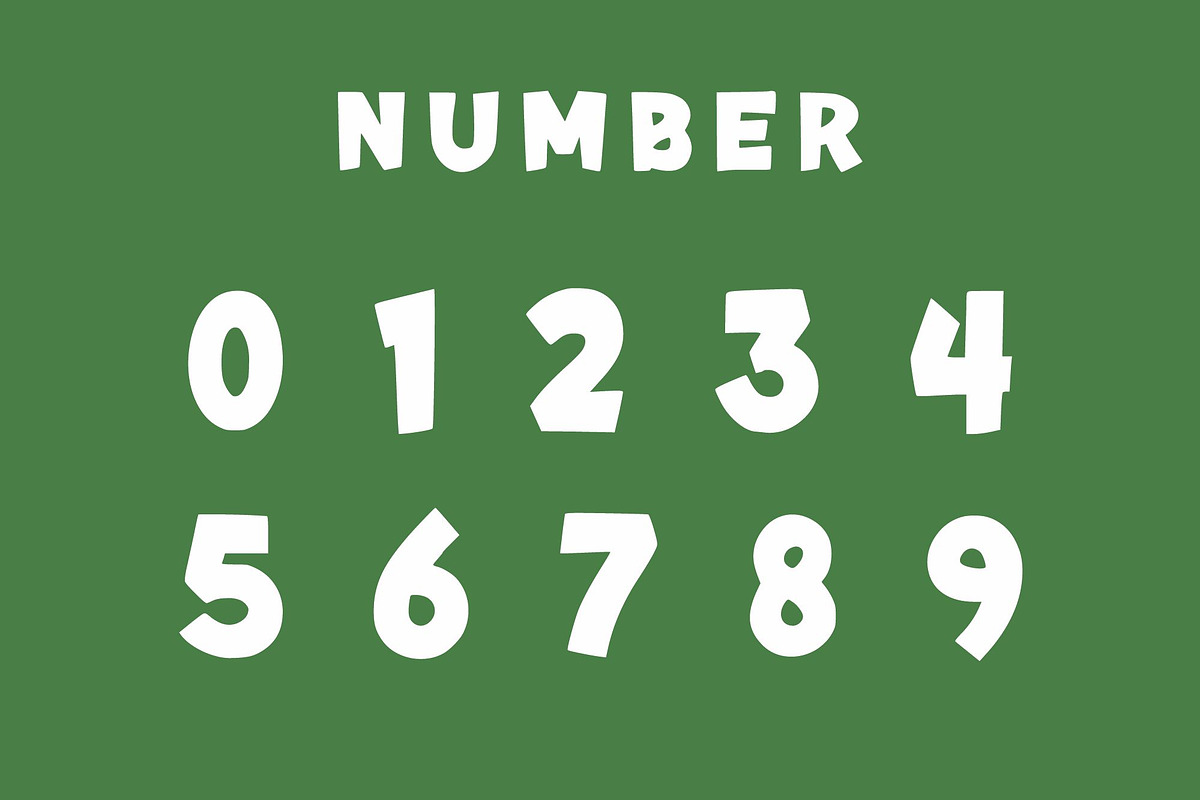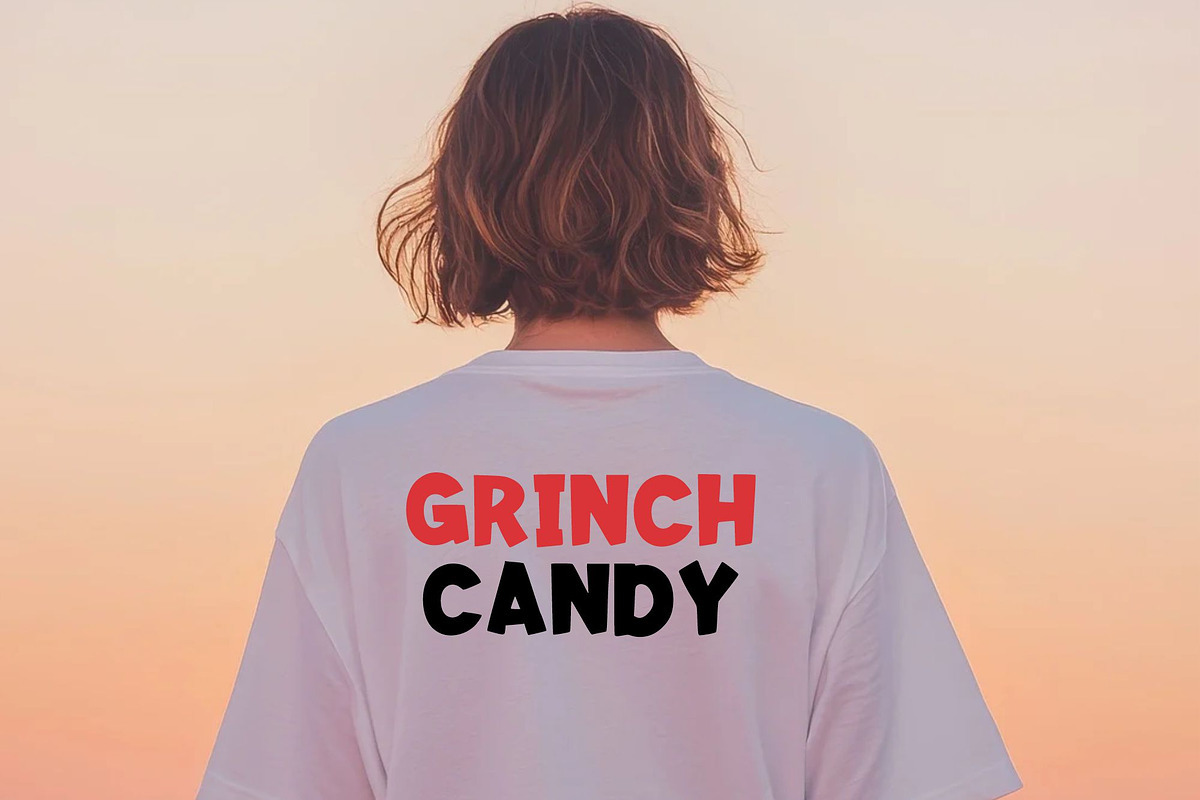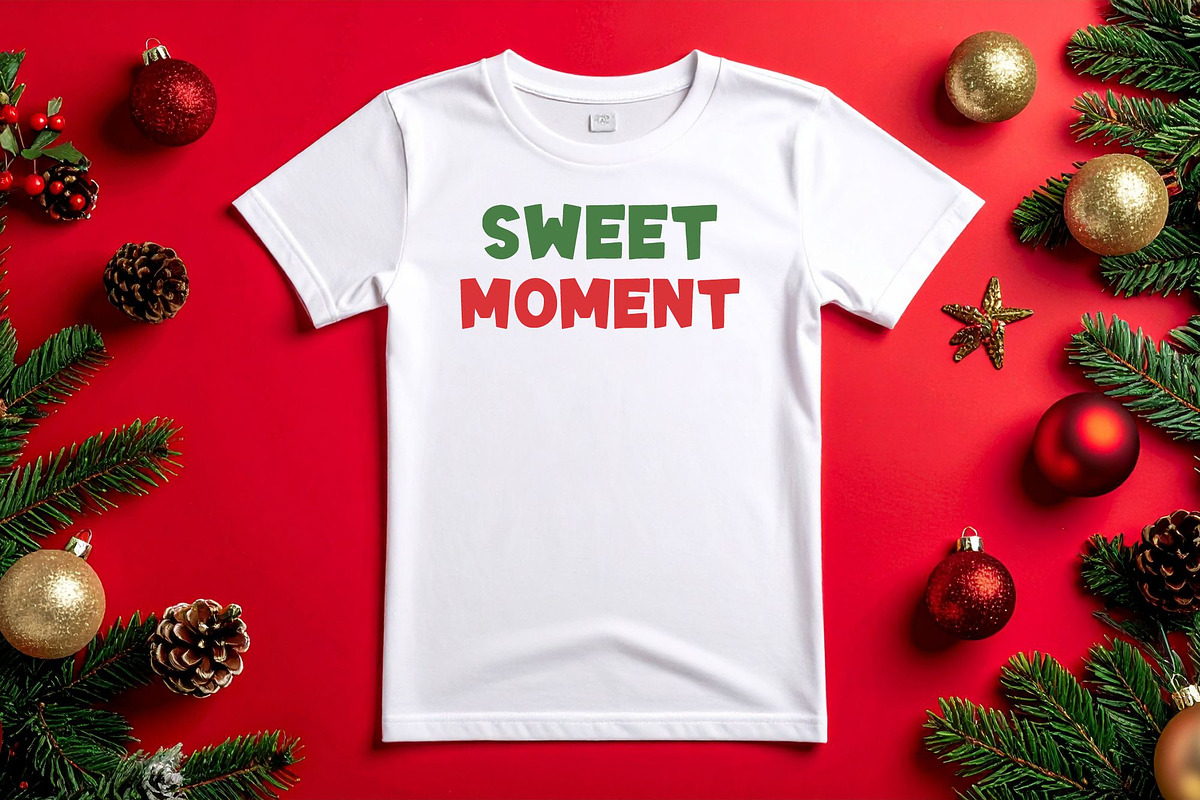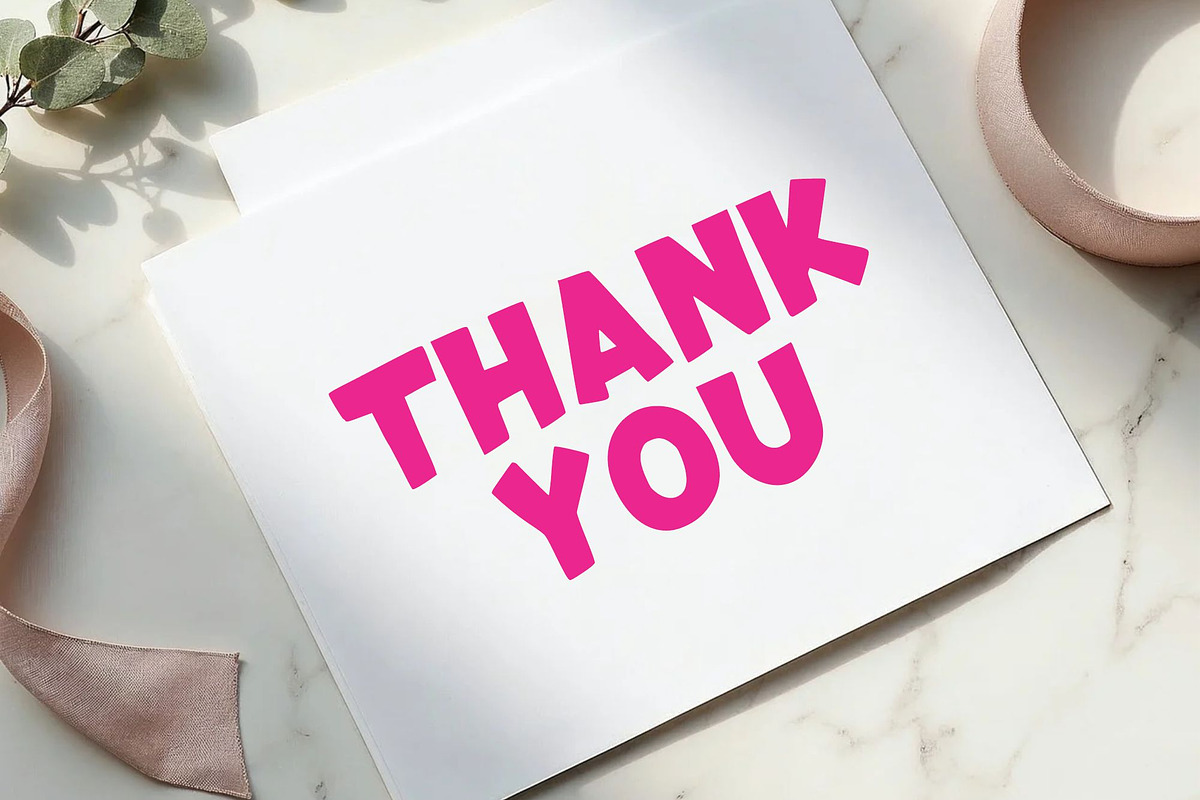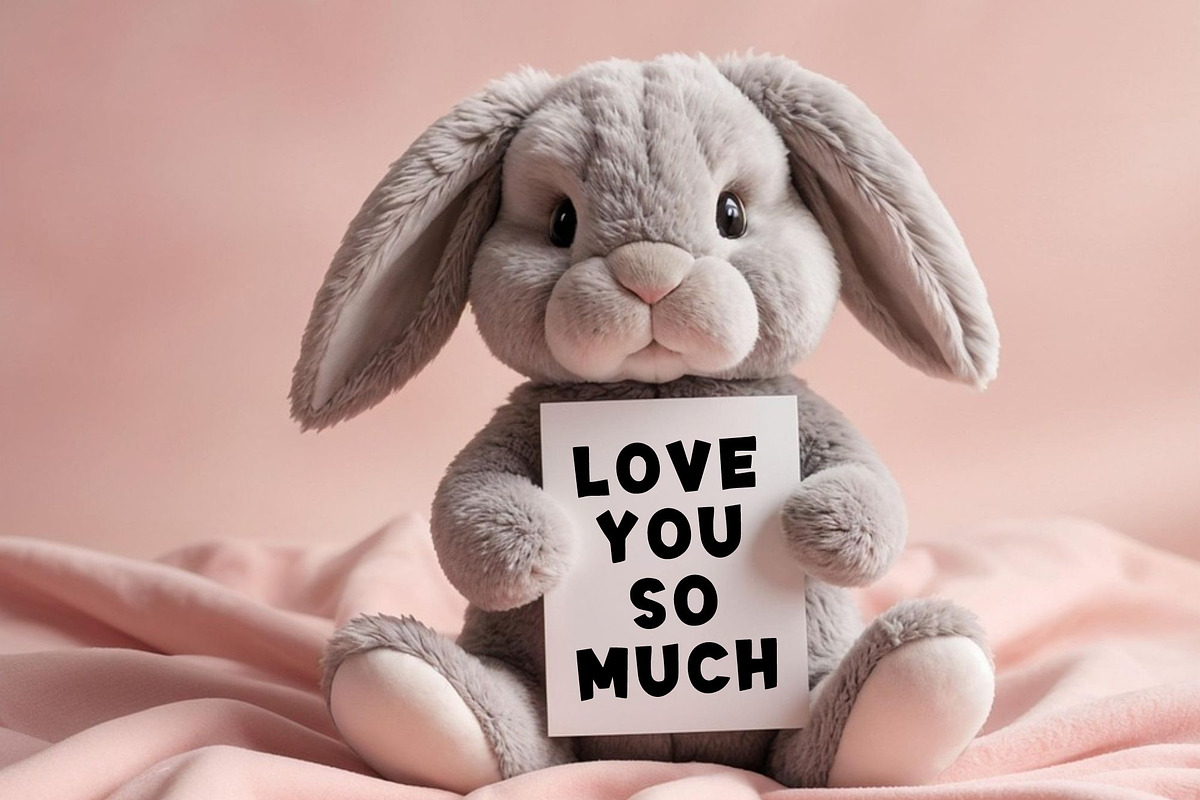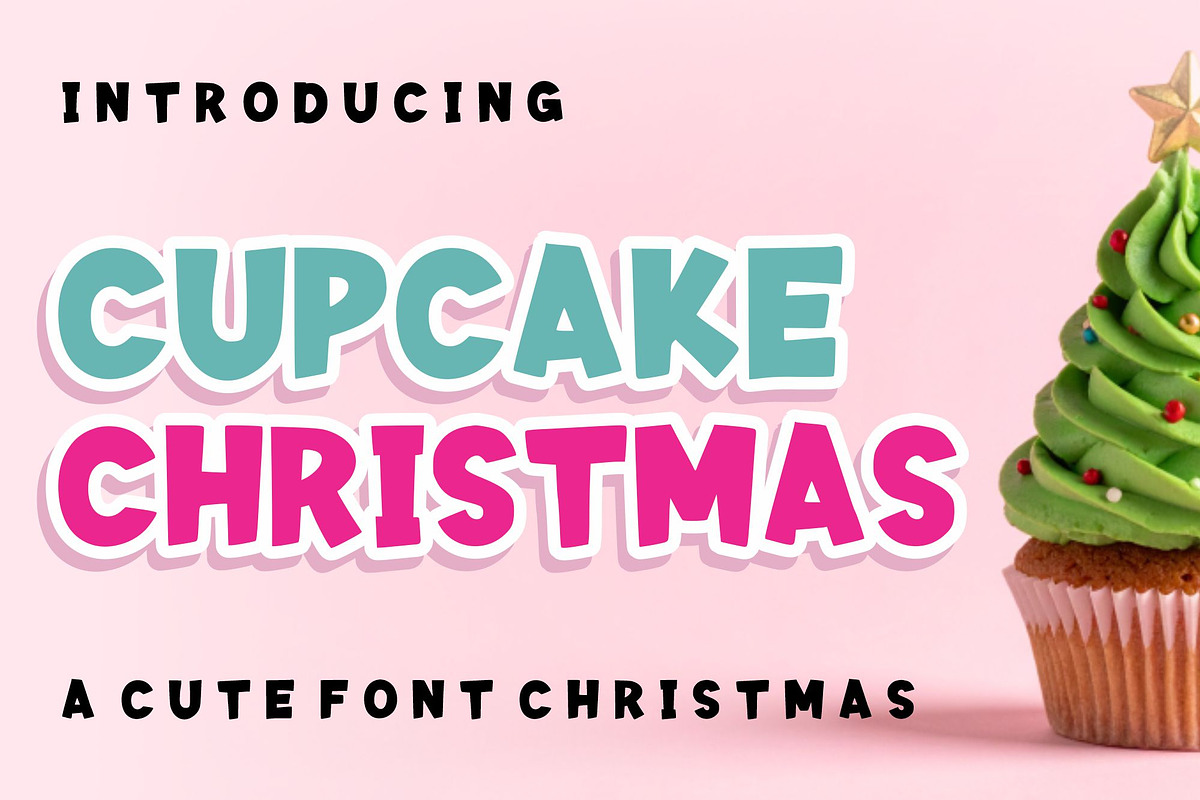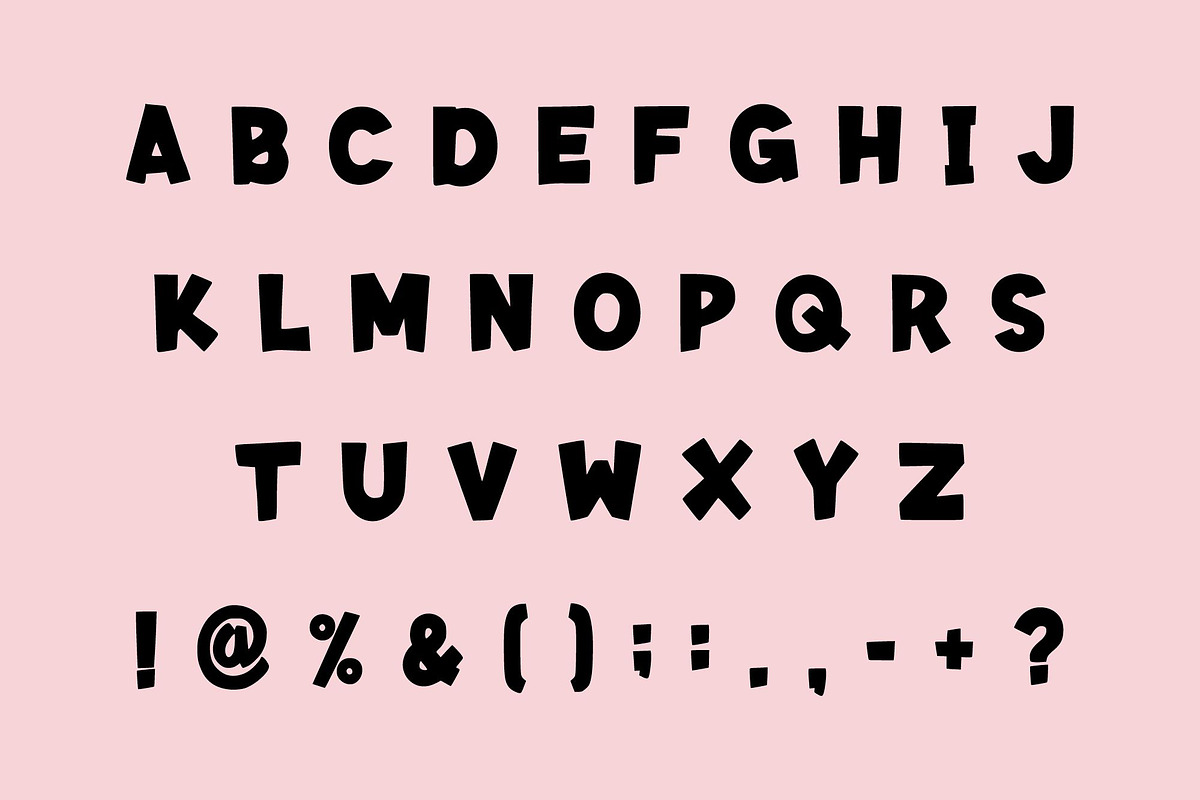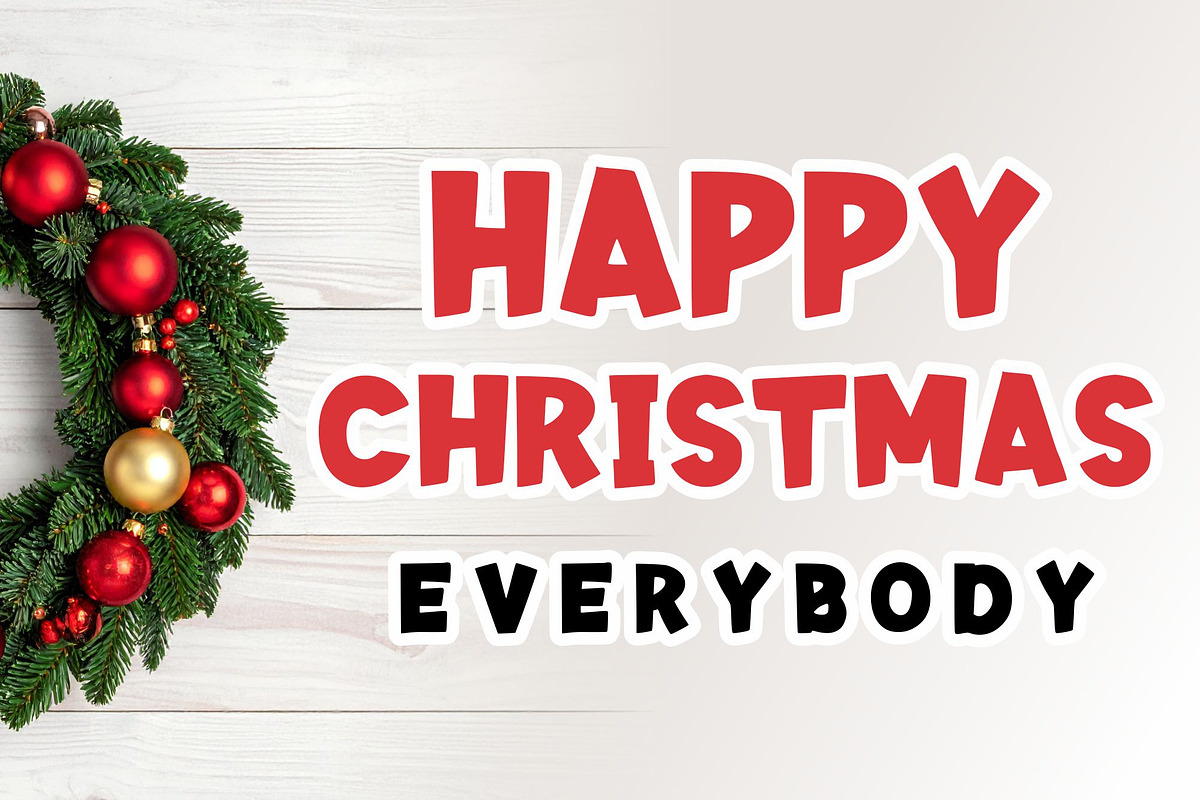
Cupcake Christmas
Bring cheer to your designs with Cupcake Christmas, a bold and playful display font perfect for festive projects. Its chunky, hand-drawn style with bright, cheerful vibes makes it ideal for Christmas cards, invitations, posters, T-shirt designs, mugs, tote bags, and more.